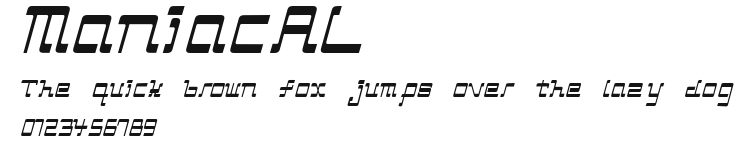
ManiacAL Preview
• Font Name: ManiacAL
• Full Font Name: ManiacAL
• PostScript Name: ManiacAL
• Character Count: 89
About ManiacAL.ttf
ManiacAL.ttf is a modern, elegant sans-serif font designed for ultimate readability and visual harmony. Perfect for branding, headlines, web design, and print materials.